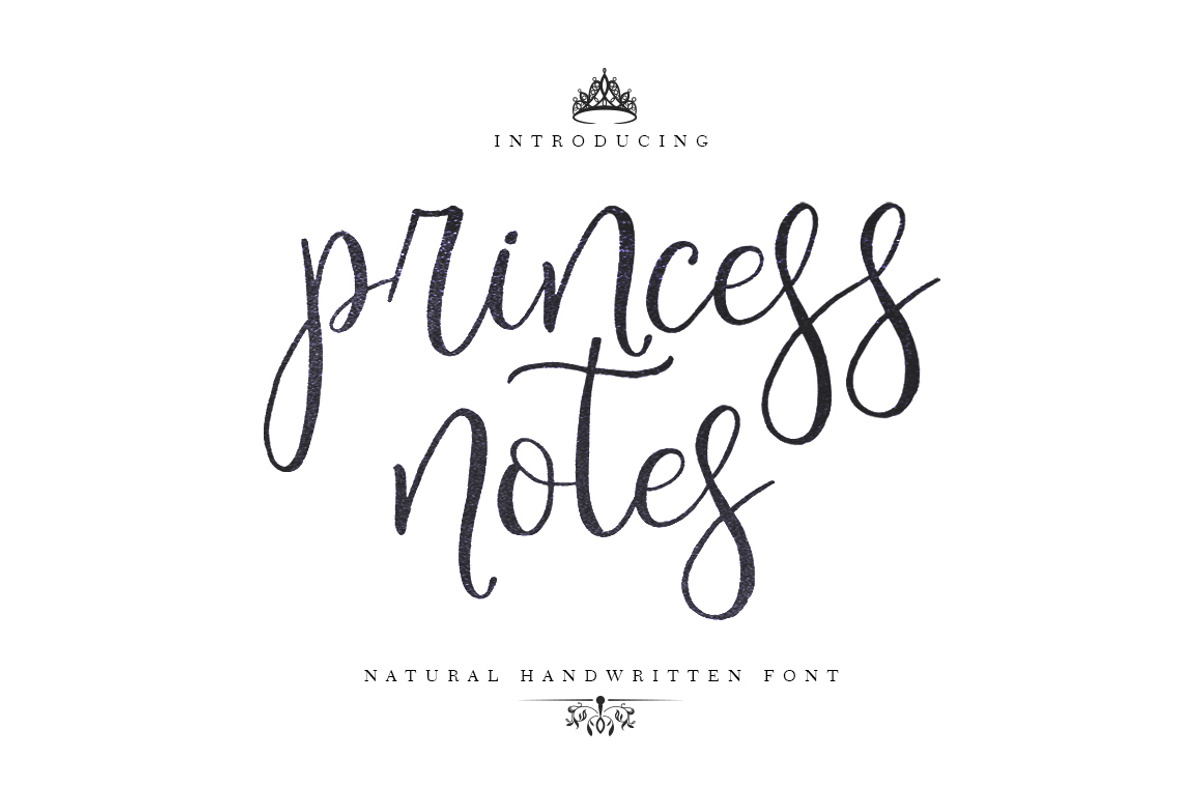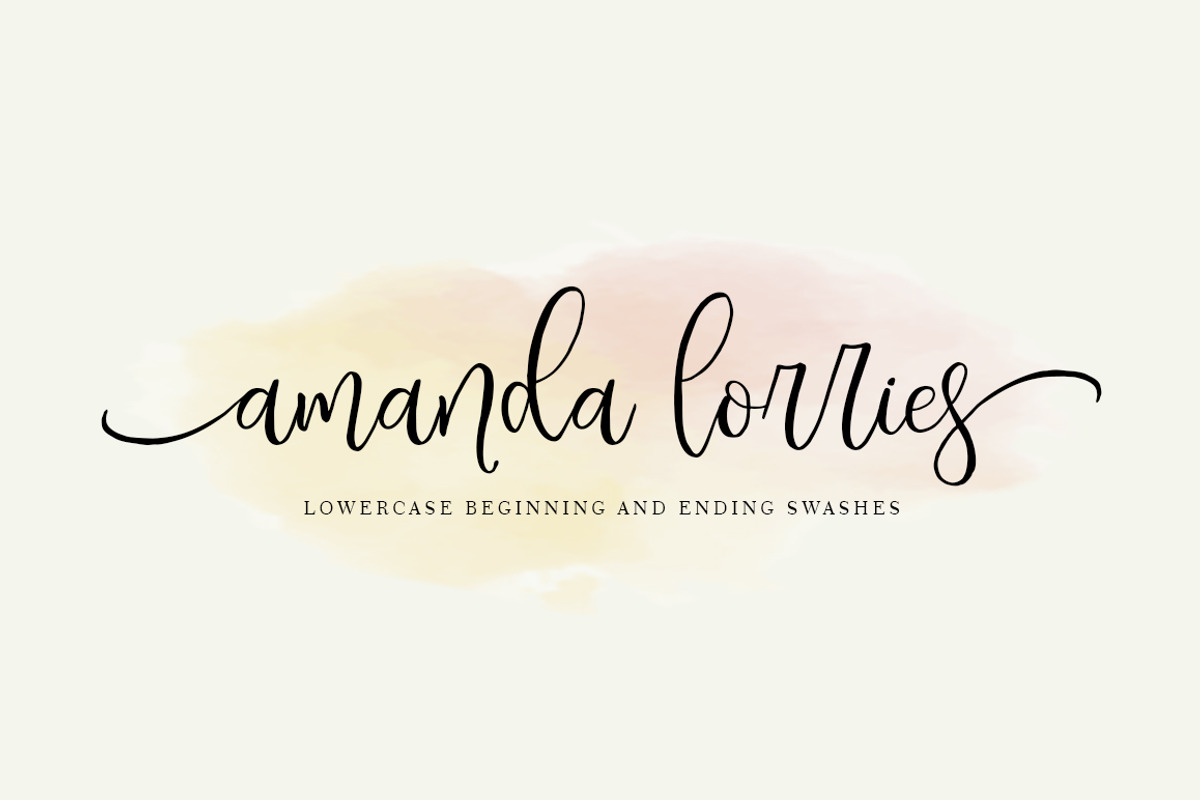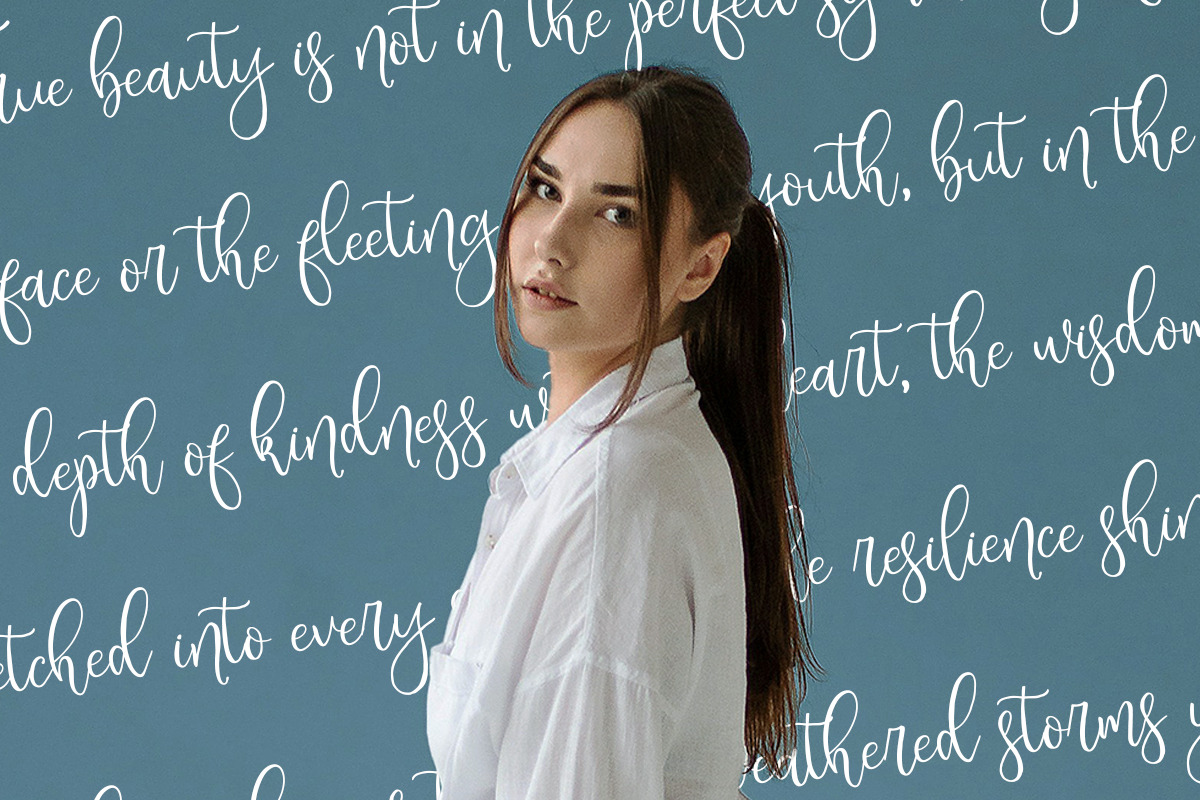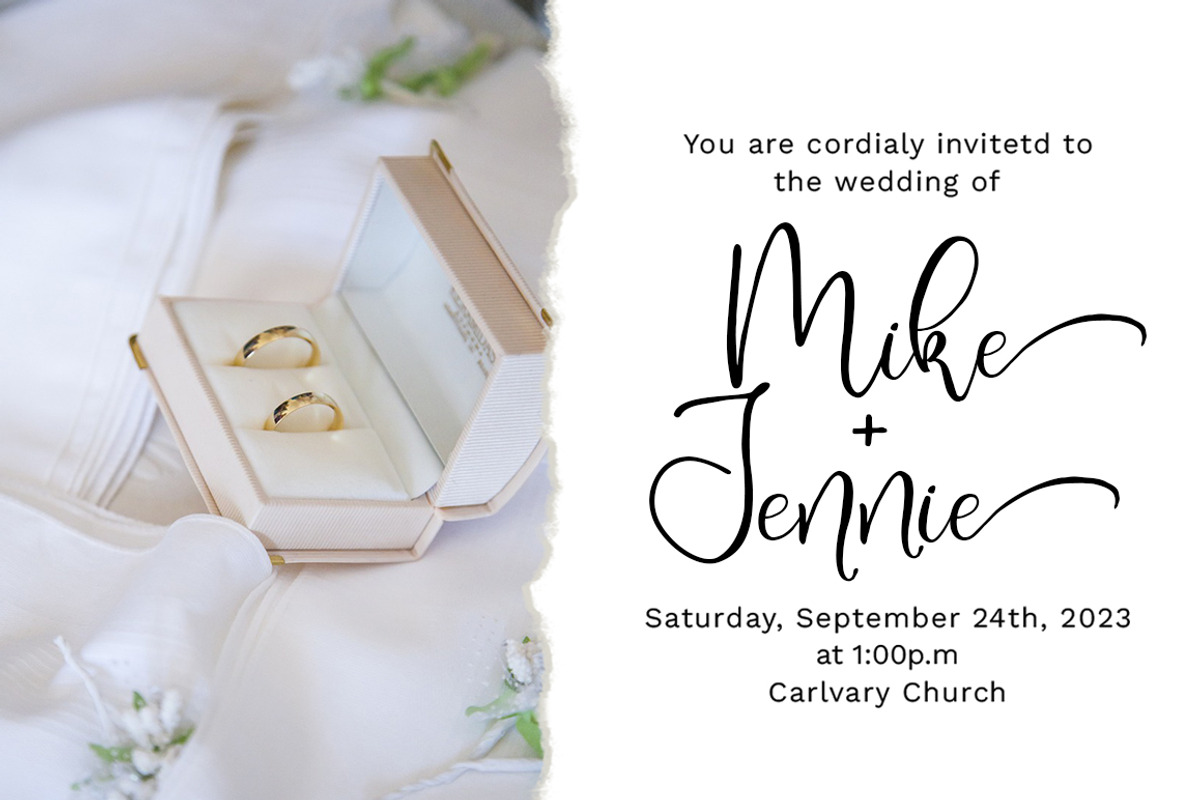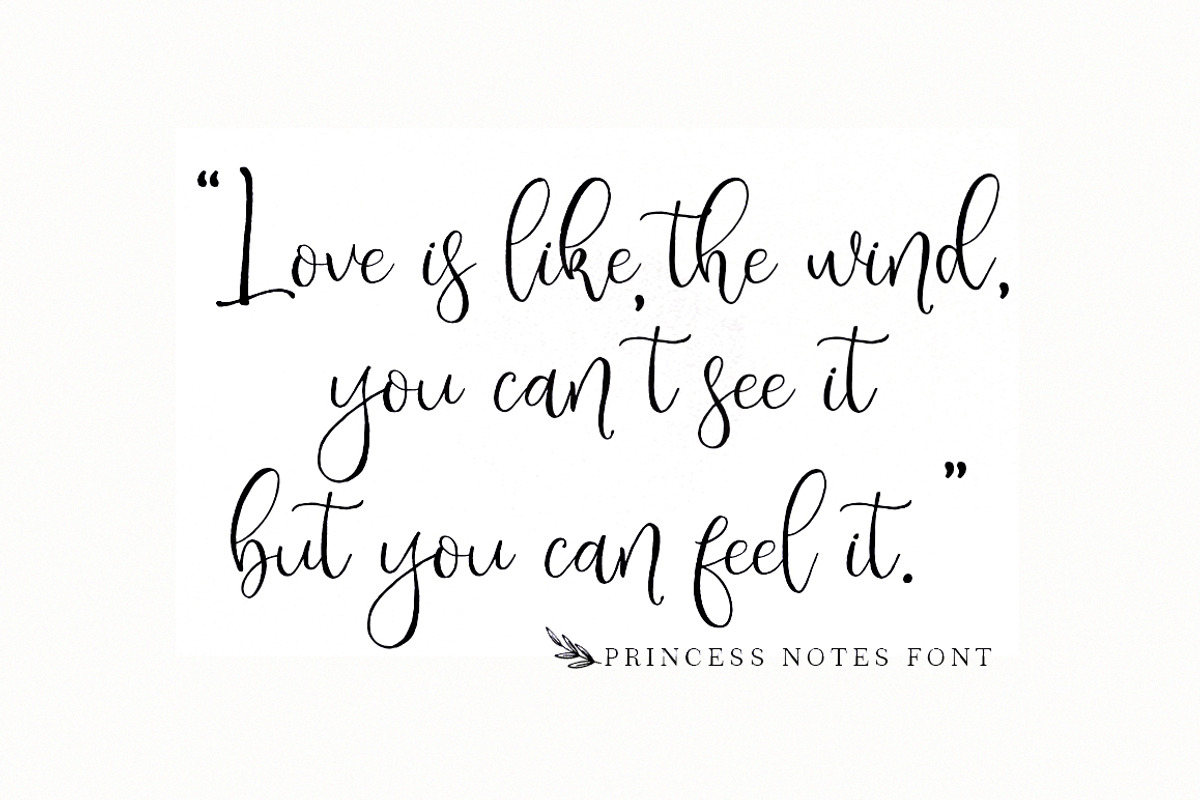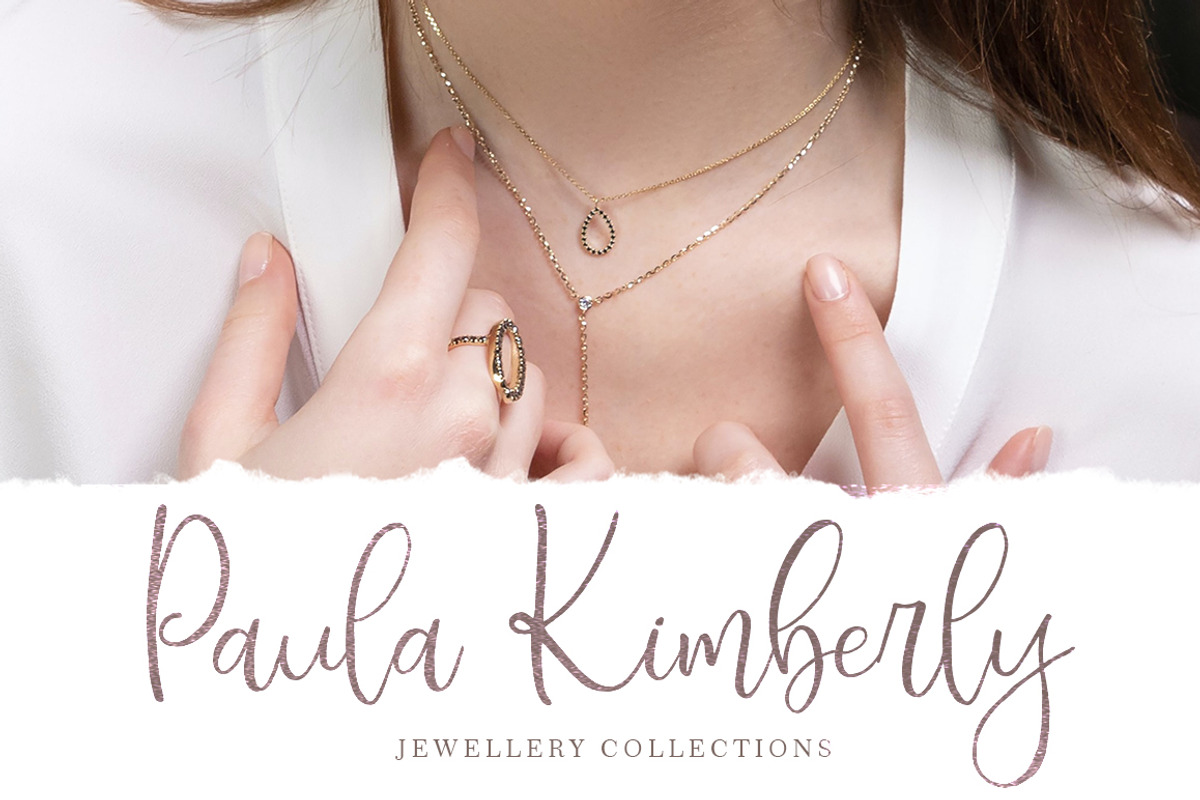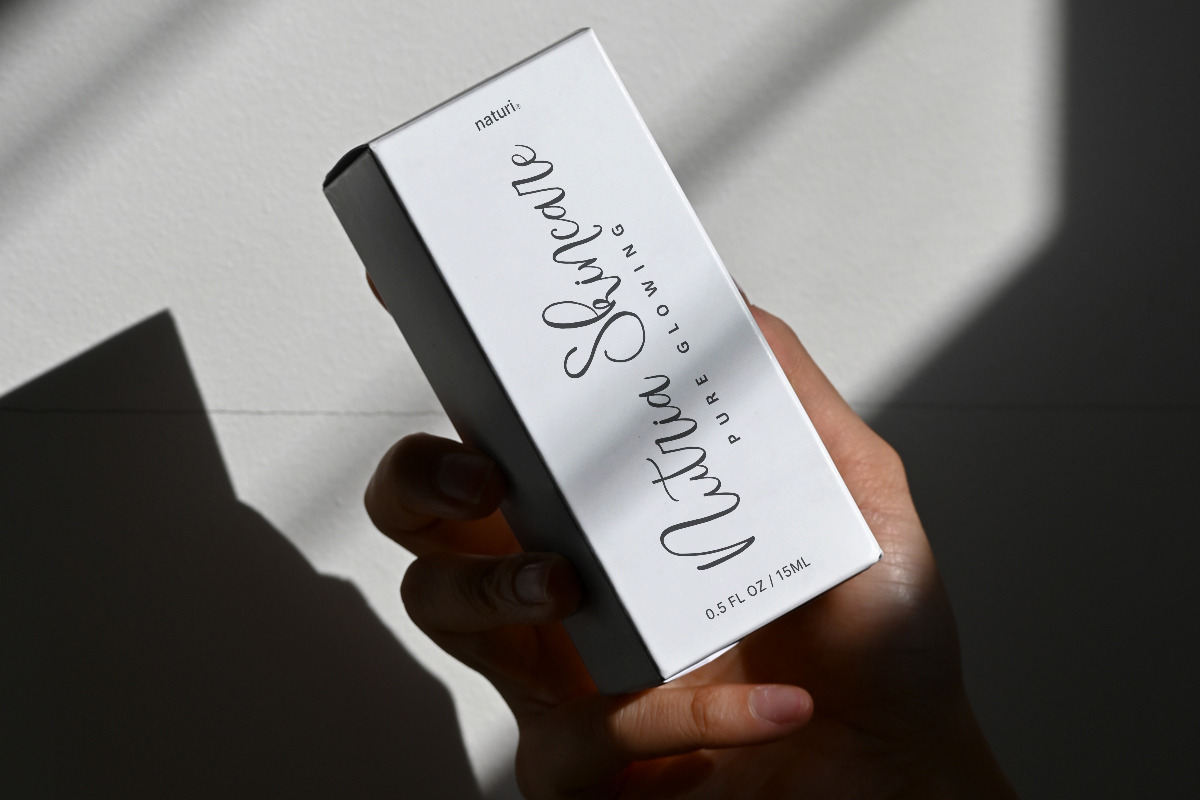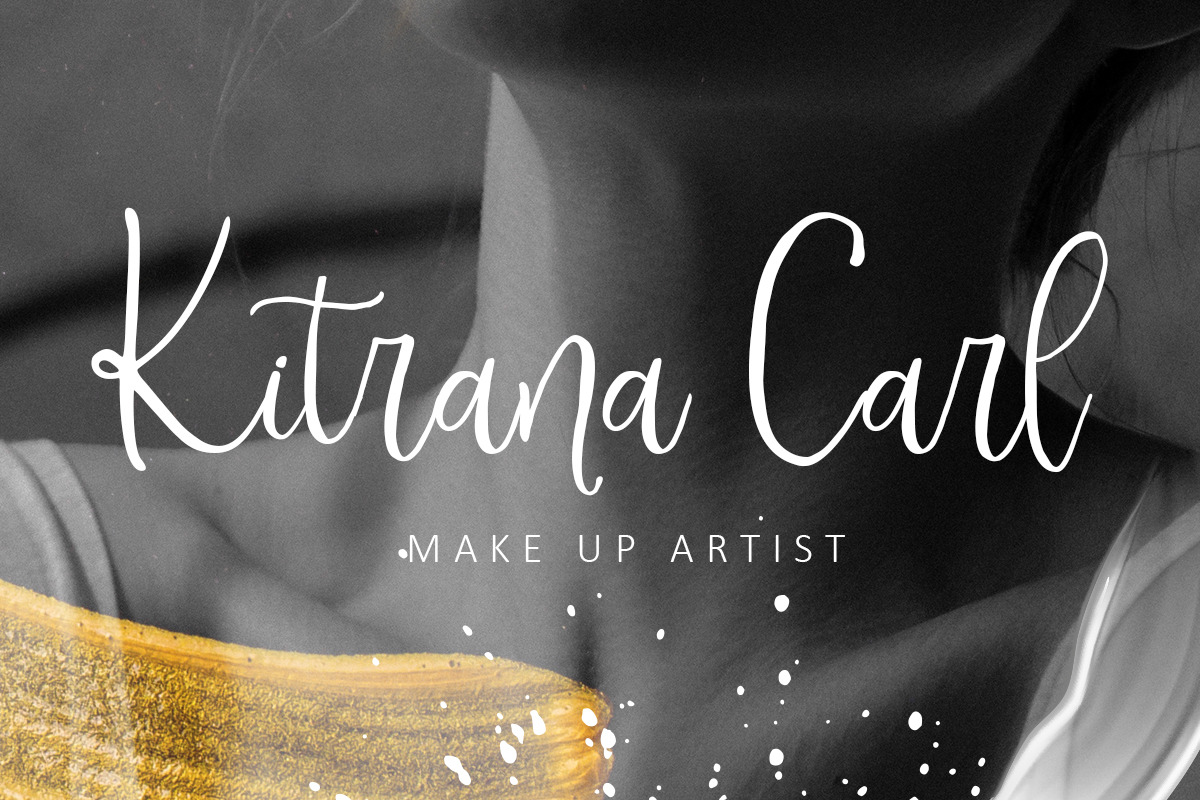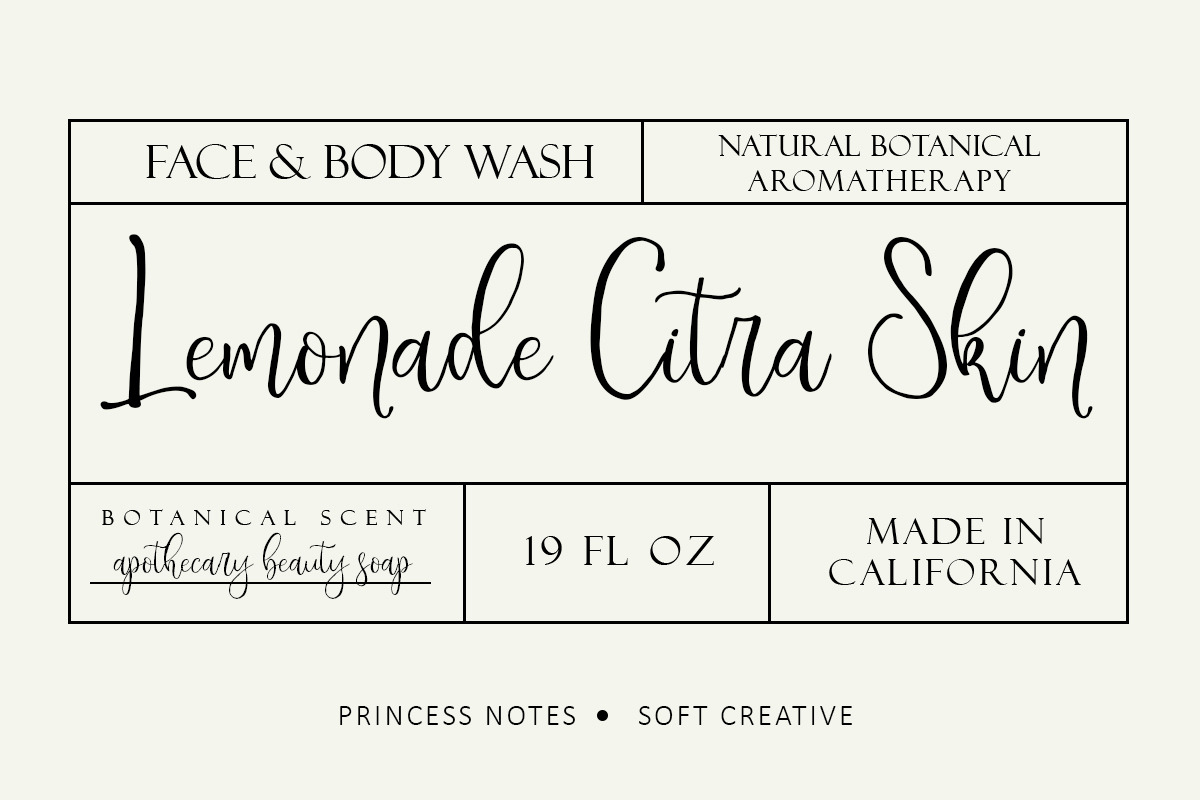
Pricess Notes
Introducing Princess Notes, a modern handwritten font with an ink texture, featuring swashes and ligature alternatives. Princess Notes is great for feminine logos, wedding stationery, small business branding, and more.